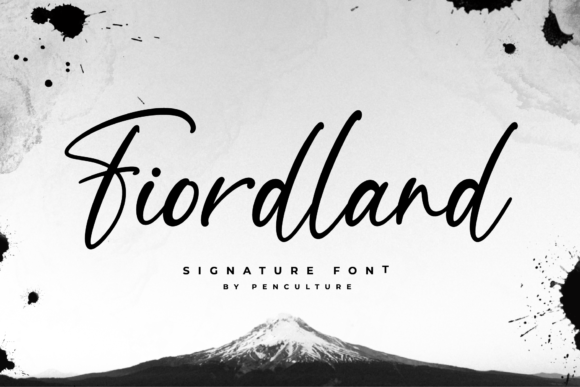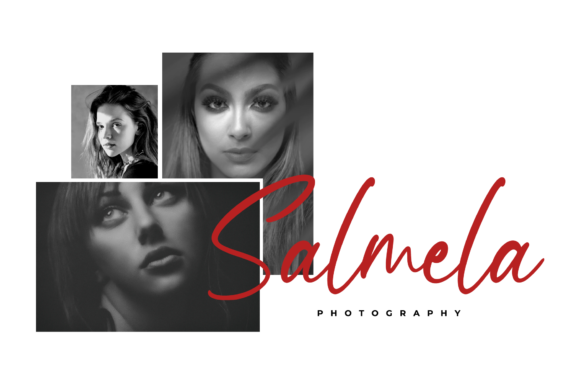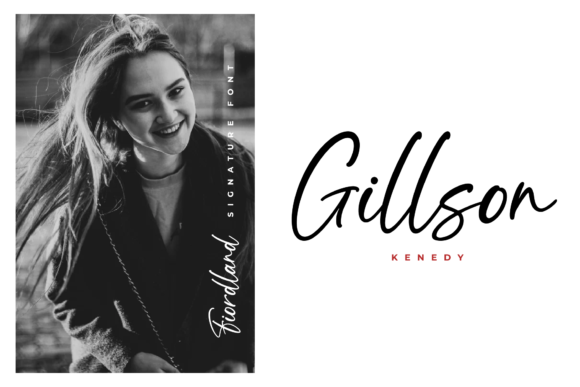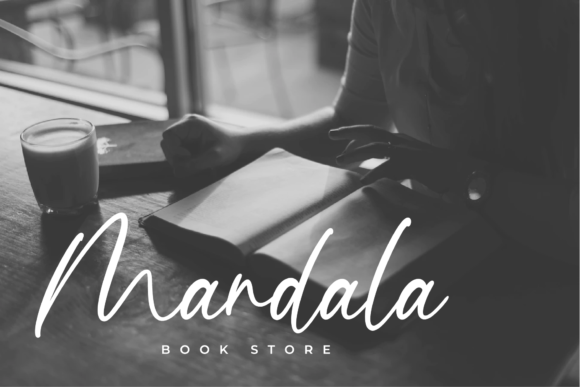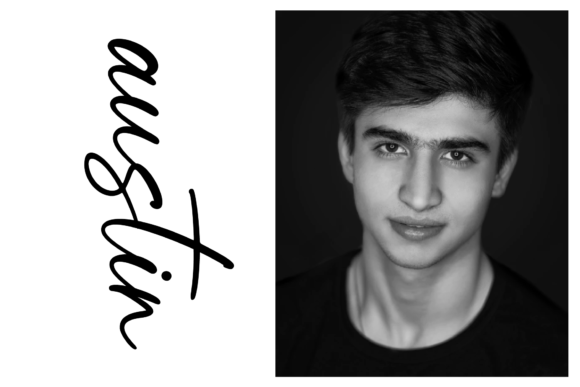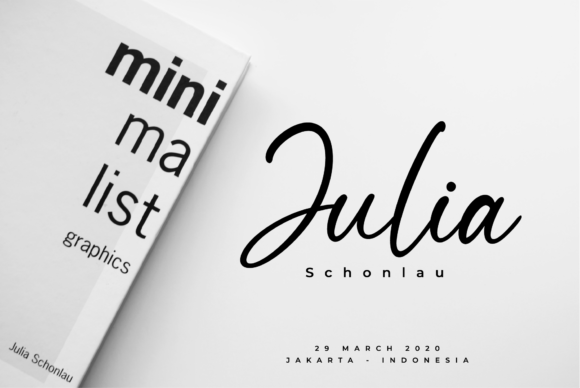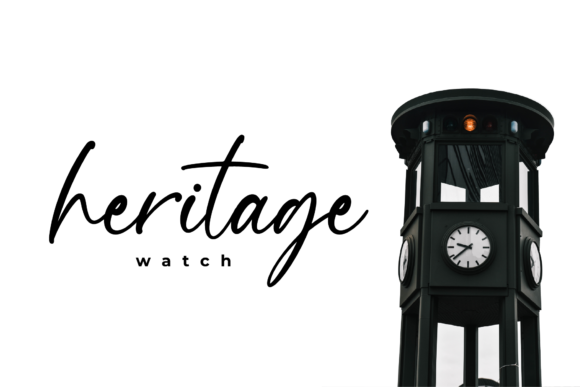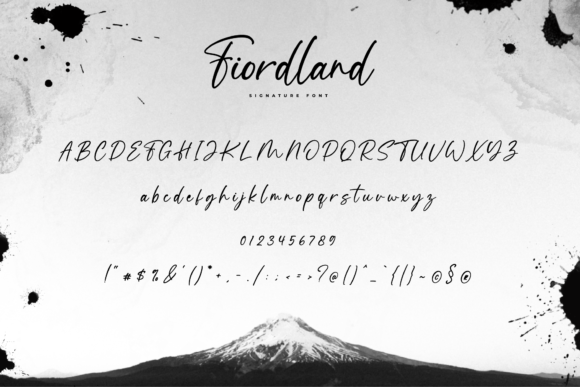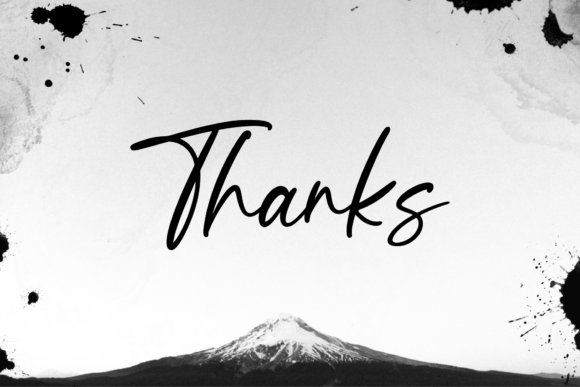
HomeScript FontsFiordland Font Script Fonts Fiordland Font FacebookXPinterestWhatsApp Fiordland Font Poster 2 Fiordland Font Poster 3 Fiordland Font Poster 4 Fiordland Font Poster 5 Fiordland Font Poster 6 Fiordland Font Poster 7 Fiordland Font Poster 8 Fiordland Font Poster 9 About Fiordland Font Fiordland is a unique and wonderful script with an authentic twist. Fall in love with its dynamic charm! DOWNLOAD ON CREATIVE FABRICAThis font is sold and delivered by Creative Fabrica. Font Canyon may earn a commission if you buy through this link. People also explored Amore Font Kenangan Font Billi Font Sanitation Font Adinda Font Beautiful Flower Font The Evening Font Let’s Get Crazy Rhizo 287 0 TagsFiordland Font Previous articleEnjoy FontNext articleTimitty Duo Font LEAVE A REPLY Cancel reply Comment: Please enter your comment! Name:* Please enter your name here Email:* You have entered an incorrect email address! Please enter your email address here Website: Save my name, email, and website in this browser for the next time I comment. Personal Use Free Retro Free Personal Use Free Read more about this font Roland Personal Use Free Read more about this font Fuixg Personal Use Free Read more about this font Heart Memory Personal Use Free Read more about this font BLOG The 10 Best Handwriting Fonts to Add Personality to Your Designs 10 of the Best Handwriting Fonts for Adding Personality to Your Designs There will undoubtedly be no other better choice than handwriting fonts to give... 5 Fonts That Will Dominate Design Trends in 2026 Free Fonts Risk: Why Free Fonts Can Be Dangerous for Designers How to Install and Use Fonts on Windows, macOS, and Web Projects